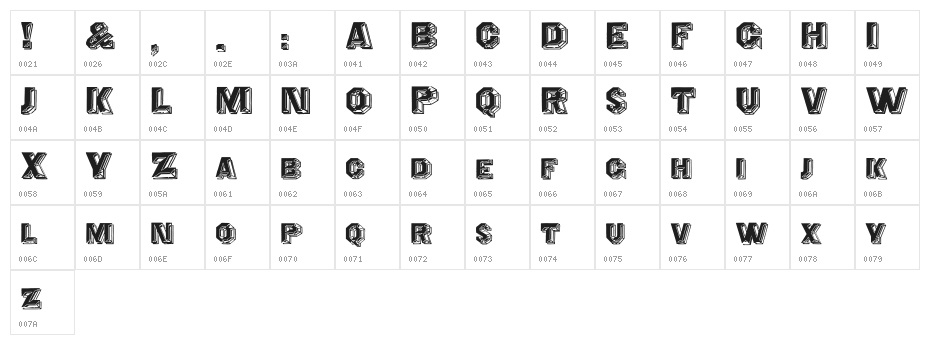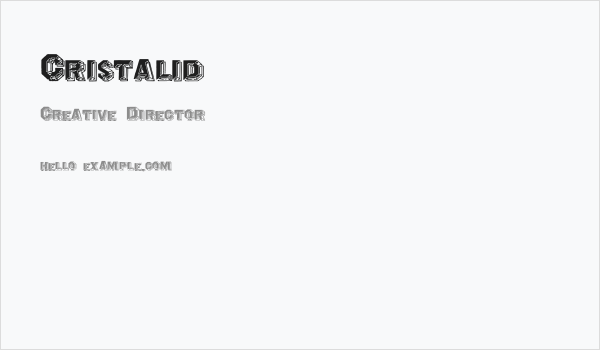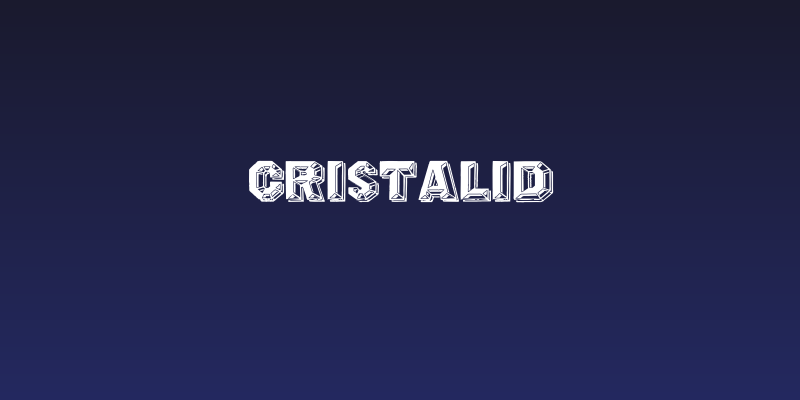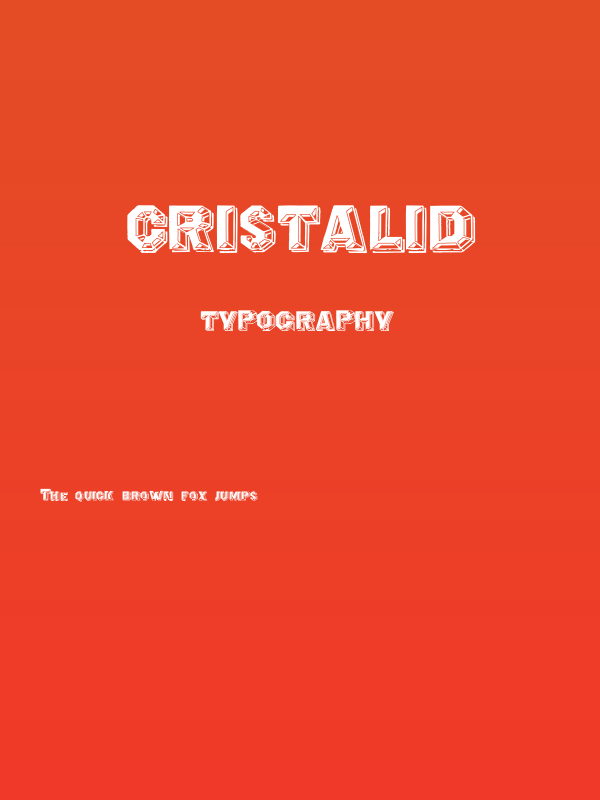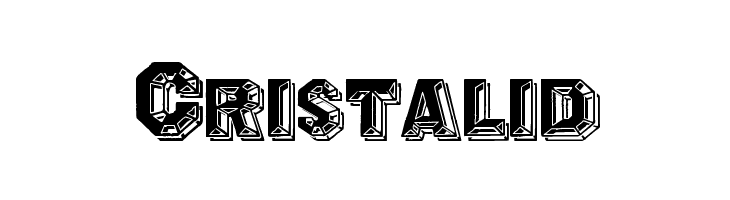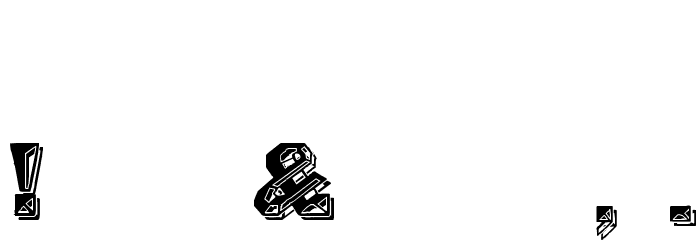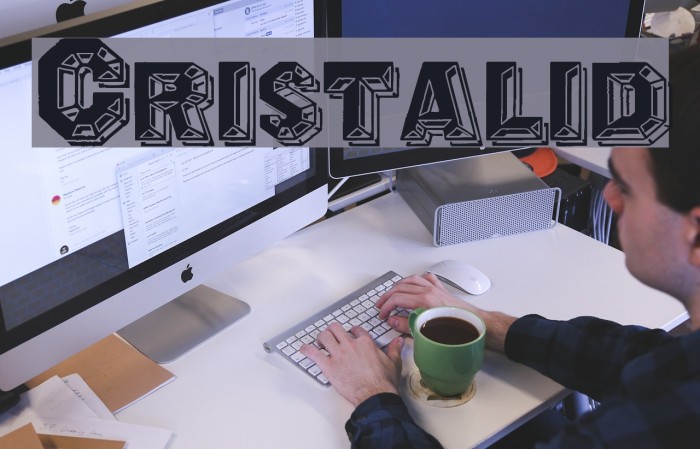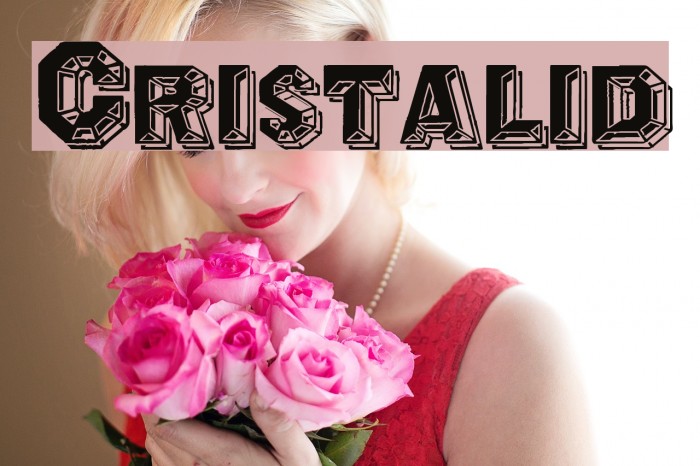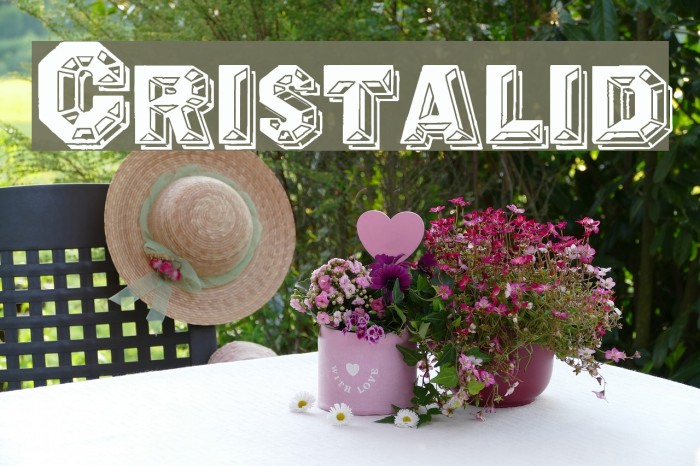
Cristalid Font
Cristalid Description
This font features a bold, three-dimensional design with a geometric, block-like appearance. The letters are outlined with a thick black stroke, creating a strong contrast against the white interior. Each character has a faceted, crystal-like texture that adds depth and complexity, making it stand out as a decorative display typeface. The angular and sharp edges give it a modern and edgy feel, suitable for eye-catching headlines or artistic projects. The font's unique style is consistent across uppercase letters and special characters, maintaining a cohesive look.